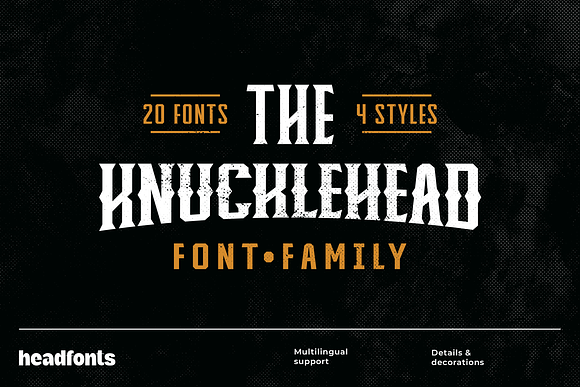
Knucklehead Font Family
This rugged typeface is perfect for motorcycle brands, biker merchandise, tattoo studios, vintage garages, rock bars, automotive shops, rebellious campaigns, tough guy branding, and hardcore lifestyle design projects.
What makes this font exciting is its motorcycle toughness combined with biker authenticity, offering designers a hard-hitting typeface that captures the spirit of road warriors while delivering rebellious edge and knuckle-dragging raw sophistication.
The Knucklehead font family includes regular, bold, distressed, stencil, and chrome variations, providing complete biker design solutions for creating authentic motorcycle visual identities.
Whether you're developing motorcycle culture brands or crafting rebellious lifestyle experiences, Knucklehead Font Family Free Download brings exceptional biker atmosphere and motorcycle authenticity to every application. This tough typeface combines traditional biker typography with contemporary rebellious design, creating letterforms that demand respect and celebrate freedom. The font's rugged construction and road-ready details make it perfect for brands seeking immediate motorcycle recognition.
Knucklehead Font Family features carefully crafted biker styling with authentic motorcycle character that conveys genuine road warrior expertise. Each character has been designed with heavy-duty proportions and rebellious elements that enhance the tough aesthetic. The font's motorcycle qualities make it particularly effective for automotive brands and biker applications.
Professional designers choose Knucklehead Font Family for projects requiring authentic biker credibility and motorcycle atmosphere. Its rebellious heritage makes it exceptionally well-suited for motorcycle dealerships, custom bike shops, and tough lifestyle brands. The font's versatile rugged variations allow designers to control the biker intensity, from subtle rebellious elegance to full motorcycle domination.
The complete Knucklehead Font Family package offers extensive biker ornaments and motorcycle decorative elements that enhance the rebellious aesthetic. Advanced chrome features allow designers to create complex biker effects with multiple road warrior-inspired options. This comprehensive motorcycle toolkit ensures designers have everything needed to create authentic biker communications that celebrate the freedom of the open road and uncompromising motorcycle culture.